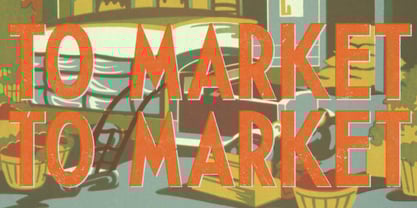
MPI Deco Font
MPI Deco Font is perfect for vintage hotel branding, Art Deco event promotions, luxury 1920s themed venues, classic cocktail bar identities, retro luxury fashion brands, and sophisticated period entertainment venues. This glamorous typeface excels in jazz club materials, vintage wedding invitations, period film titles, and any application where Art Deco elegance and roaring twenties sophistication create authentic connections with vintage luxury enthusiasts and period design admirers.
What makes MPI Deco Font so exciting is its exceptional ability to capture the opulent glamour and geometric sophistication of the Art Deco era through precisely crafted letterforms that embody the luxury and optimism of the roaring twenties. The font features geometric patterns, jazz-age proportions, and decorative character shapes that reflect the artistic innovation and cultural excitement of the Deco period. Its glamorous presence makes it perfect for brands celebrating the golden age of design and luxury entertainment.
MPI Deco Font comes in a glamorous family including Light, Regular, Medium, Bold, and Jazz weights. Each style features complete uppercase and lowercase character sets, Art Deco symbols, period numerals, and decorative punctuation marks. The font family also includes ornamental alternates, geometric ligatures, and twenties variations that allow designers to create truly authentic period communications with vintage appeal and professional Deco quality.
This sophisticated typeface transforms communications into celebrations of Art Deco heritage and jazz-age elegance. MPI Deco Font Free Download provides vintage-themed businesses and luxury entertainment venues with essential typography that honors Deco traditions while serving contemporary period-inspired communication needs. Whether you're developing brands for vintage hotels, creating materials for jazz venues, or designing promotional content for Art Deco experiences, this font delivers authentic period resonance with geometric glamour.
The font's Deco character makes it particularly effective for luxury hotels, jazz clubs, vintage fashion brands, and period entertainment venues. Its geometric readability ensures that MPI Deco Font communicates clearly while maintaining its distinctive glamorous personality. The font's ability to evoke luxury and period authenticity makes it an invaluable skyscraper for any project seeking to celebrate Art Deco heritage and connect with audiences through the timeless appeal of jazz-age sophistication, geometric beauty, and the eternal glamour of roaring twenties luxury and artistic innovation.